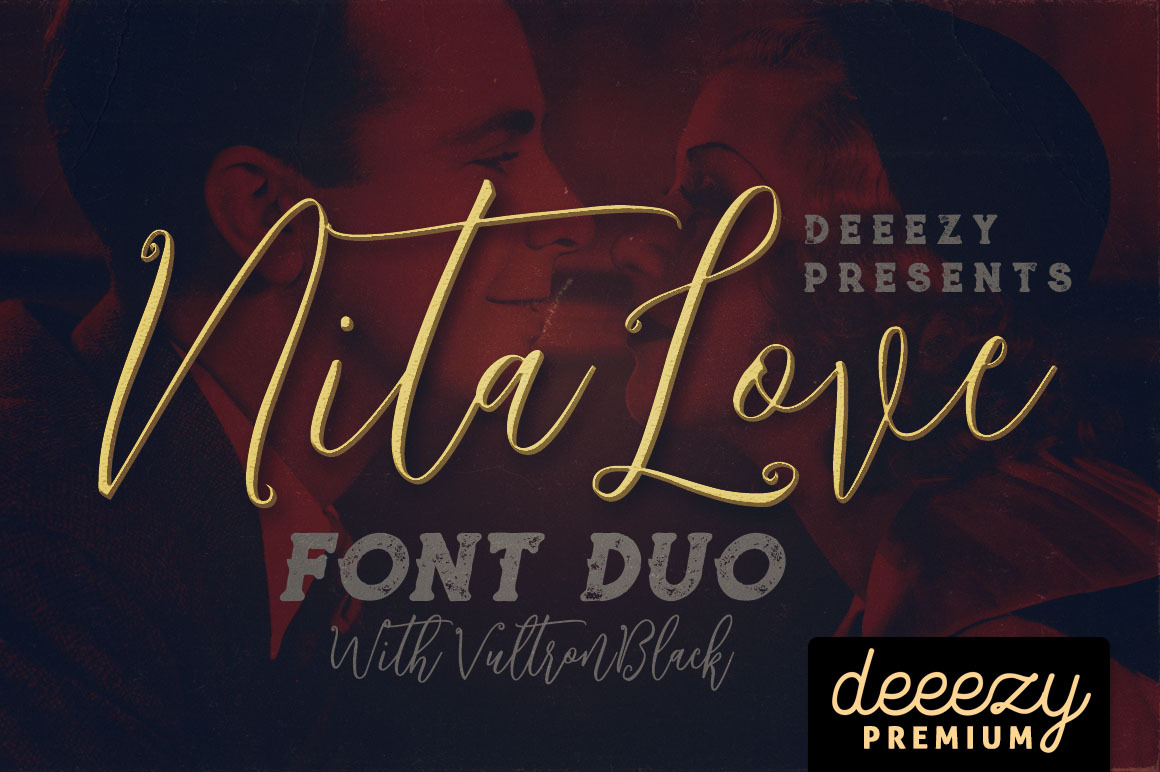
Nitalove Font Duo
Cool retro or vintage style font duo for your new projects. First font is elegant script font with multi language support and lot of stylistic alternates. Second font is cool display font with regular and grunge version and without multi language support.